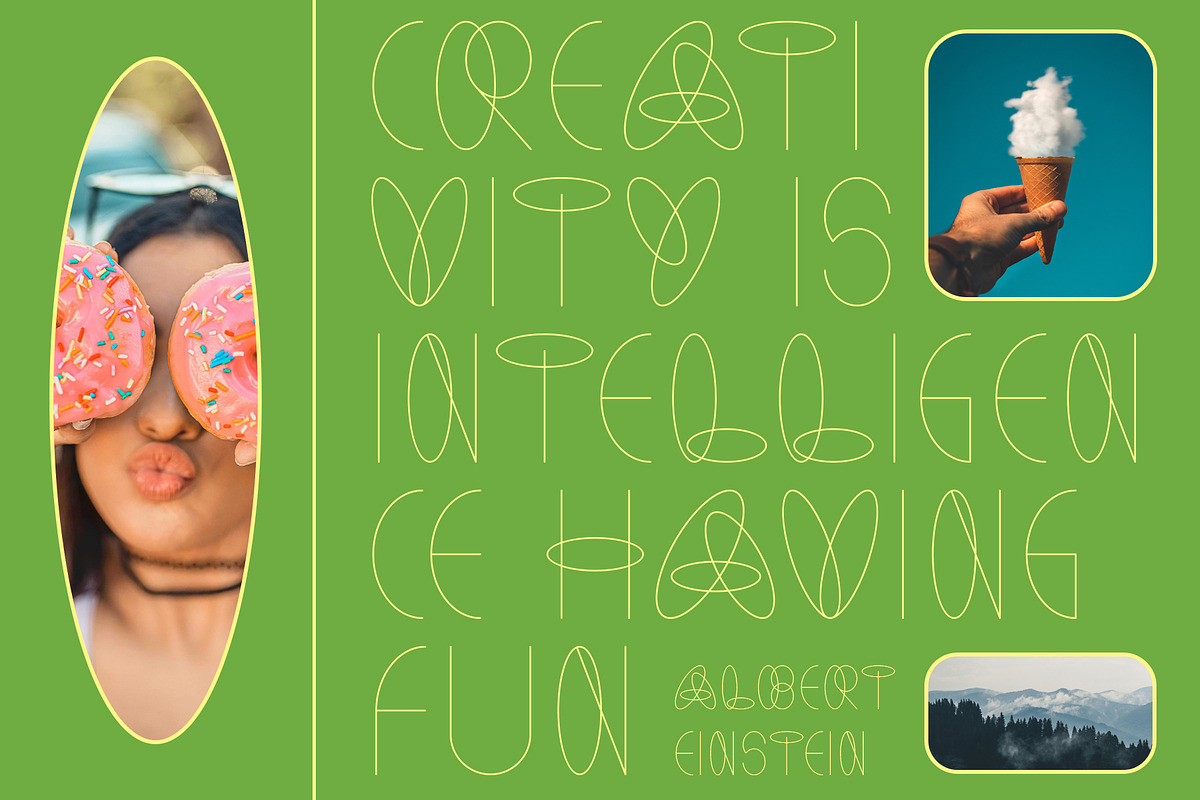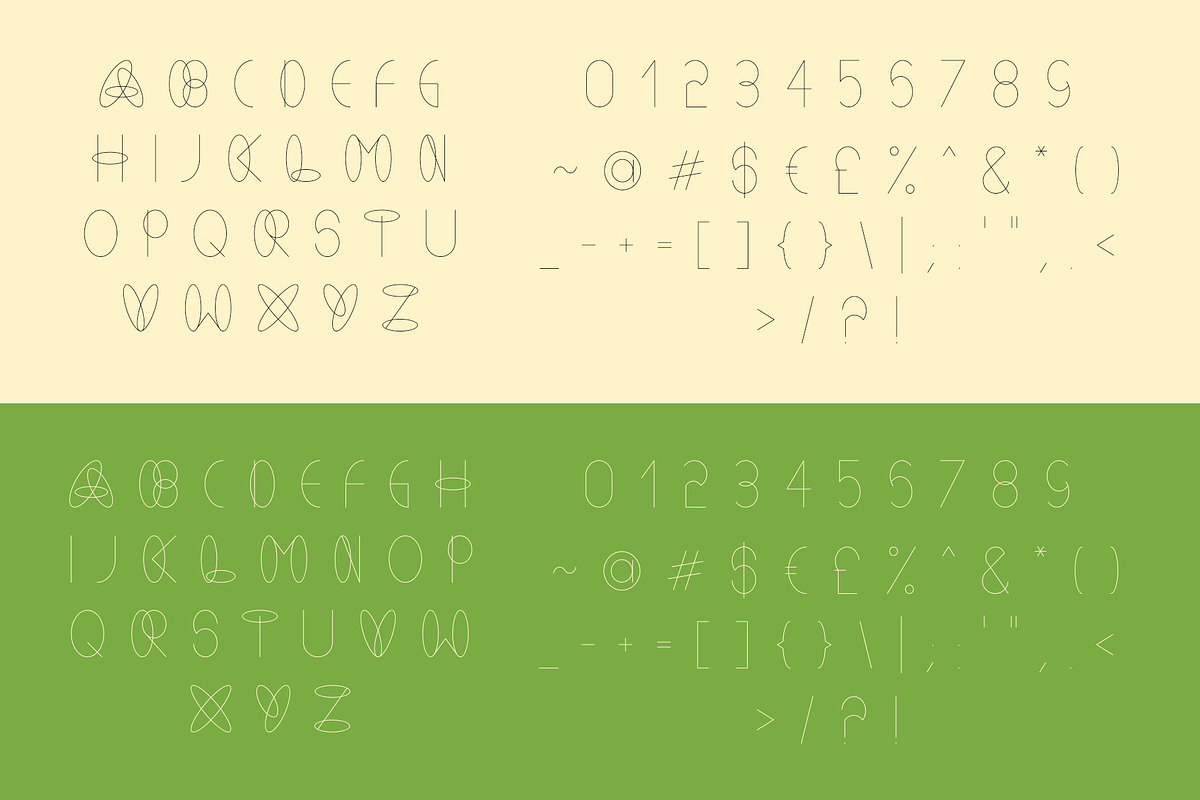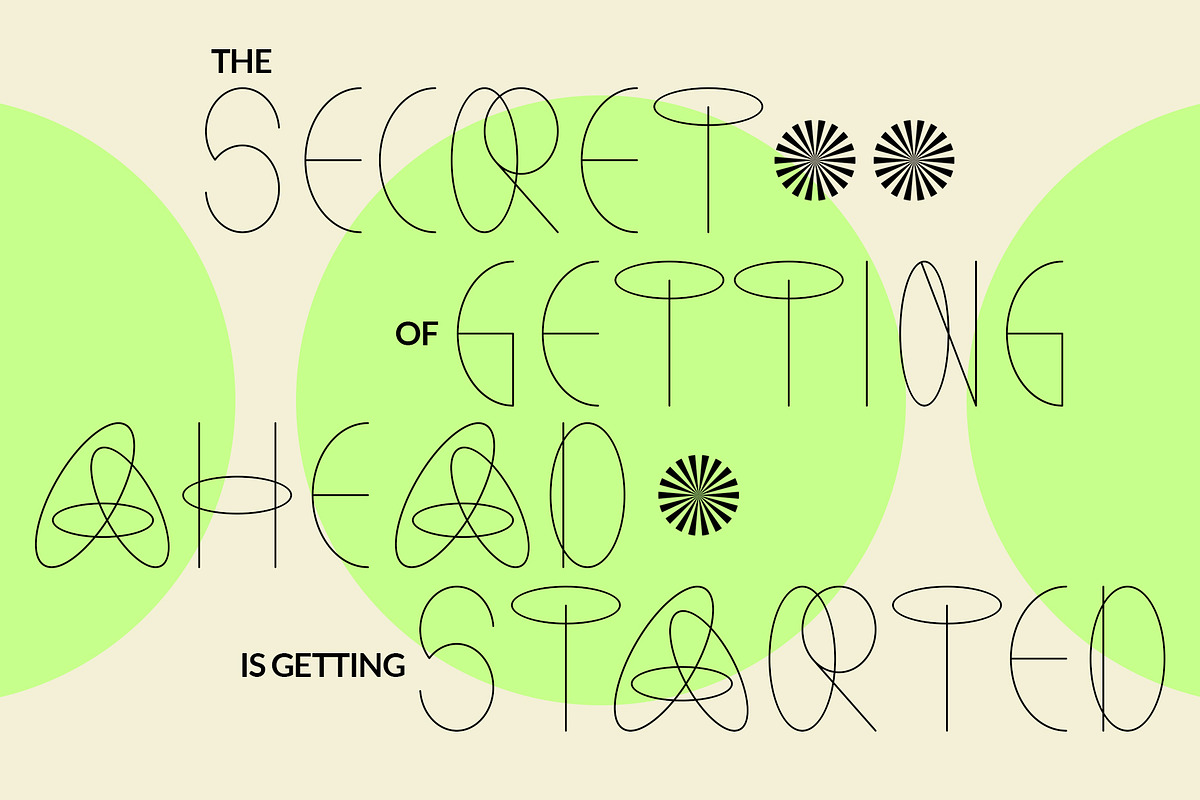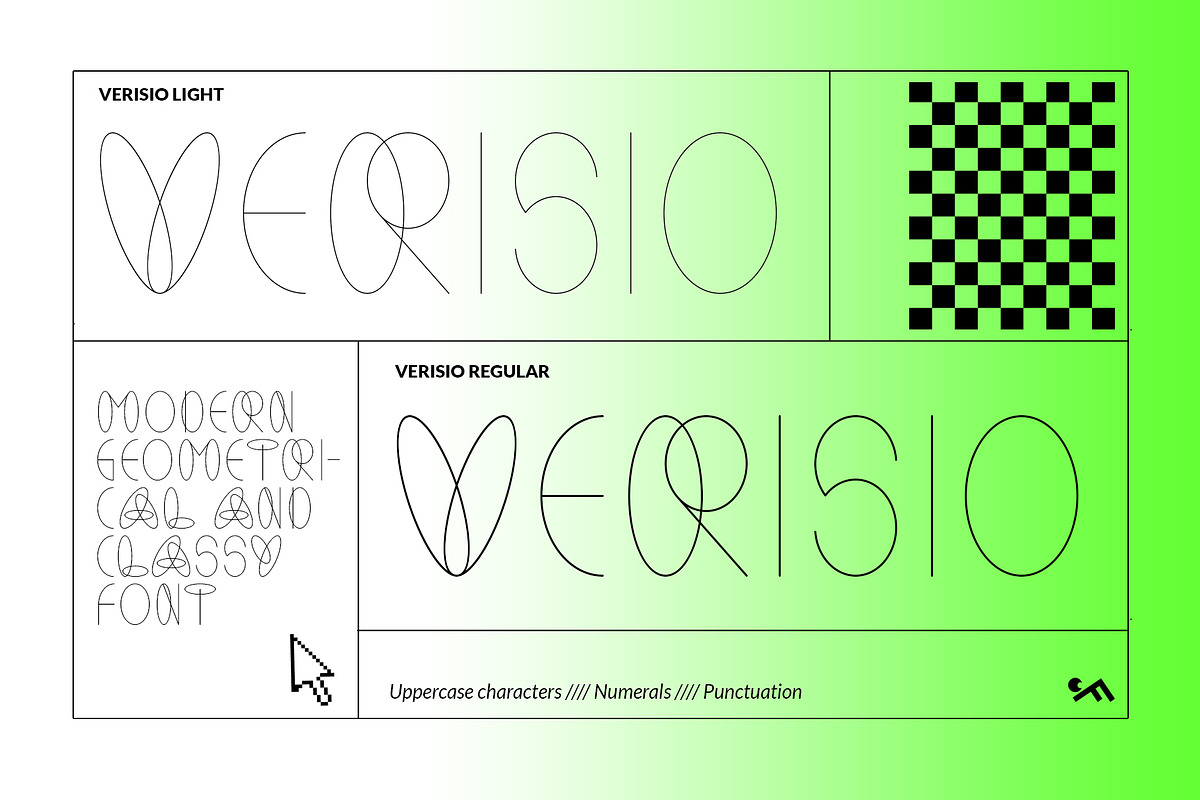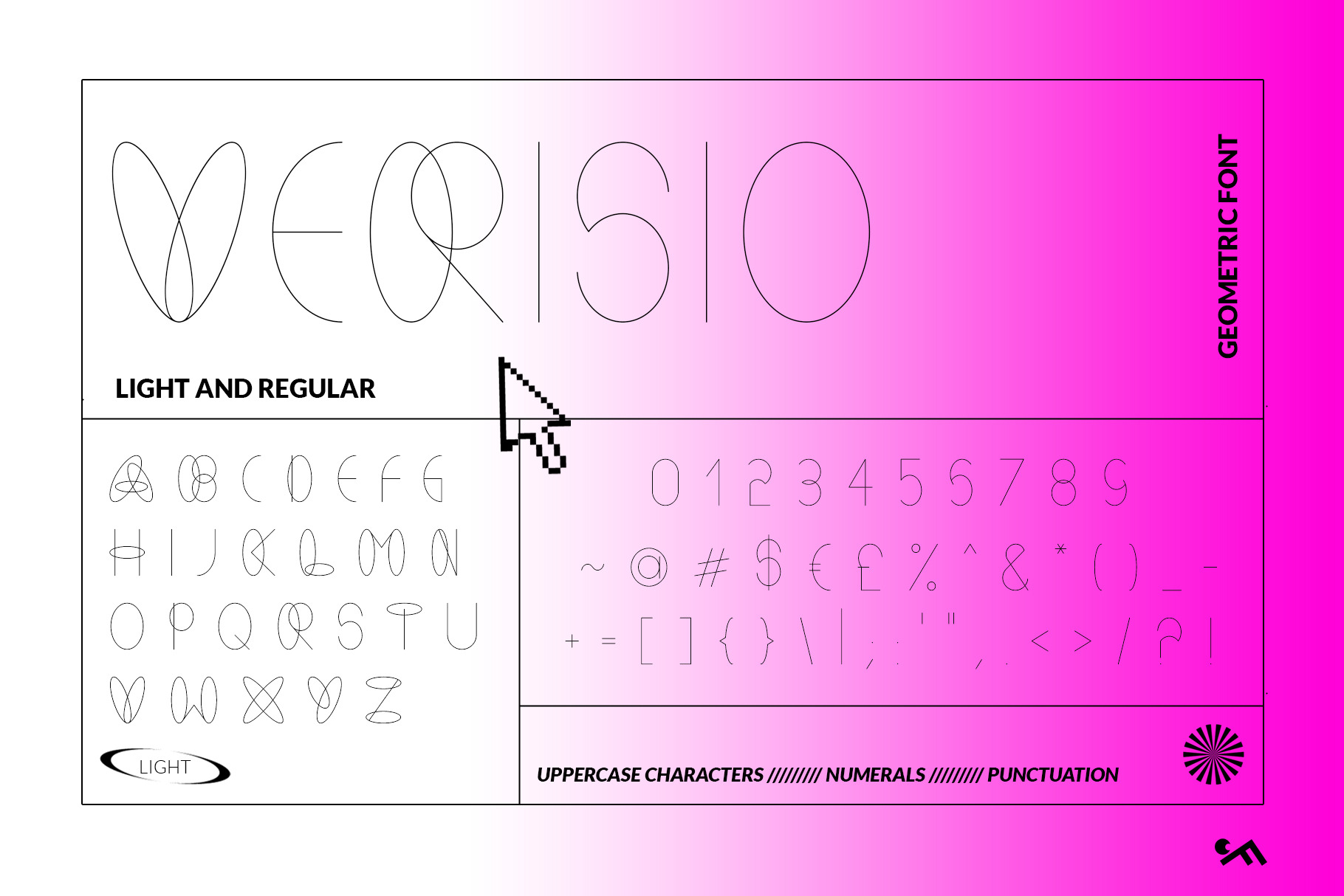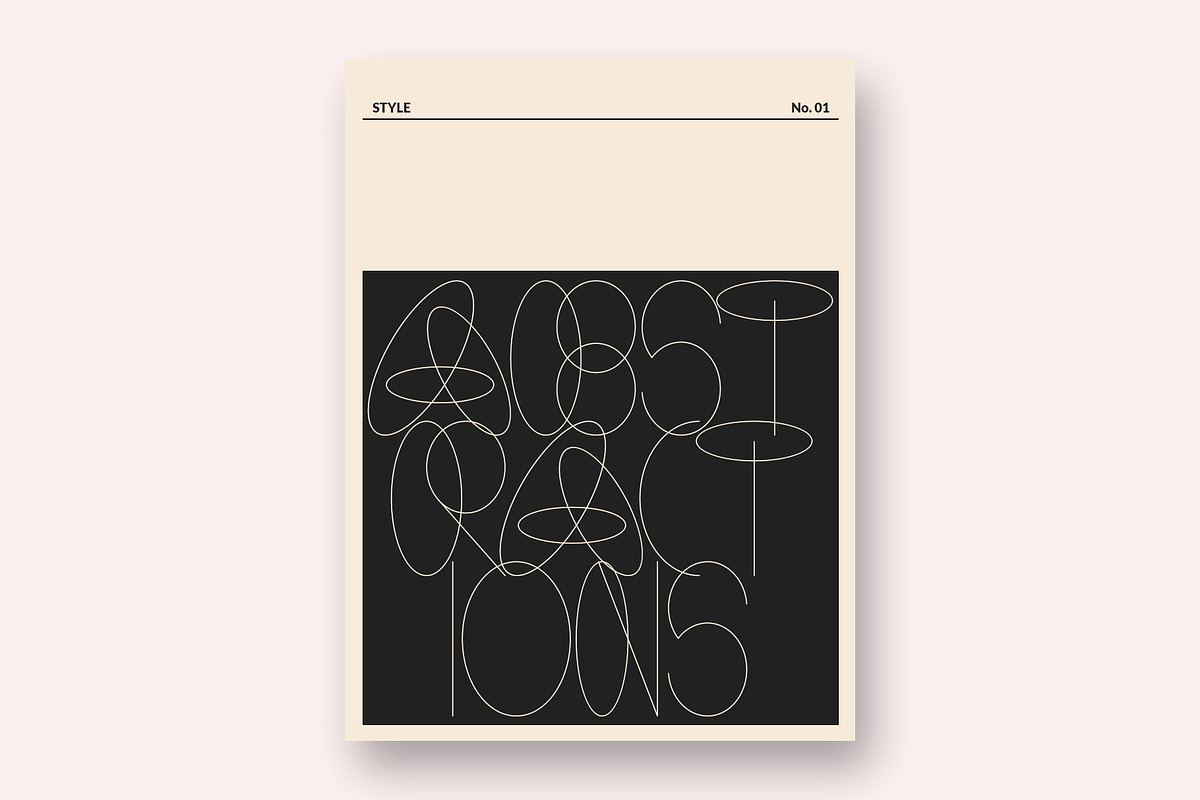
Modern Geometric Thin Font - Verisio
Introducing modern geometric thin uppercase font "Verisio" and it's light version "Verisio Light". Use this trendy classy font when you need to give modern minimalist and elegant feel to your designs.
This uppercase font works great in modern, trendy styles when you need a good accent for creative style titles, headlines. It’s great for various print and web projects - especially cool posters and banners, blogs, invitations, flyers, short quotes in social media, brochures, packaging, business cards, etc. "Verisio" font looks beautiful in vibrant, neon colors, with colorful gradients, as well as black & white.
"Verisio" and "Verisio Light" fonts consist of:
- Uppercase characters